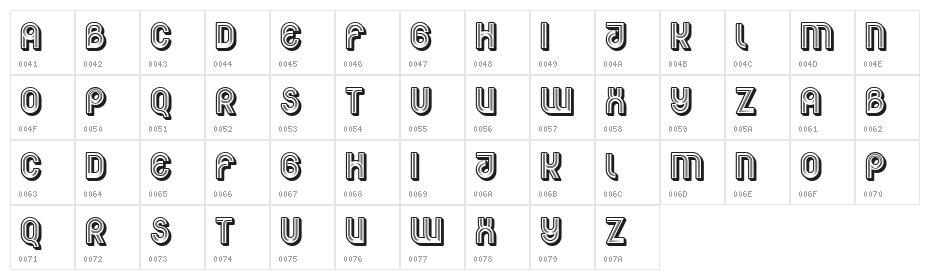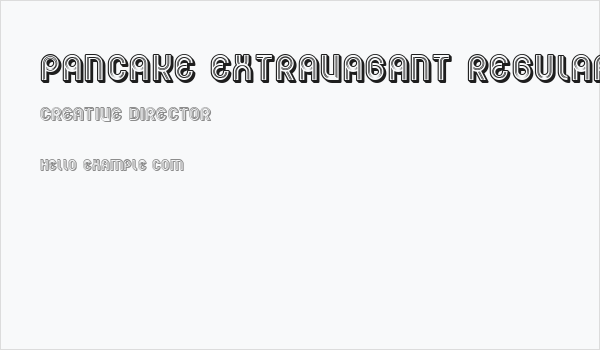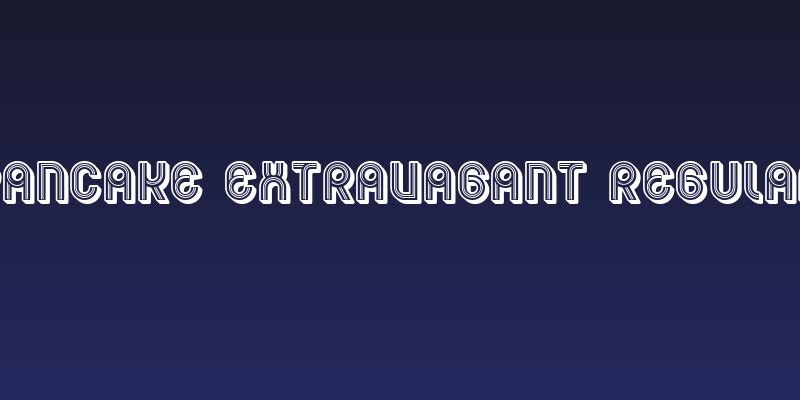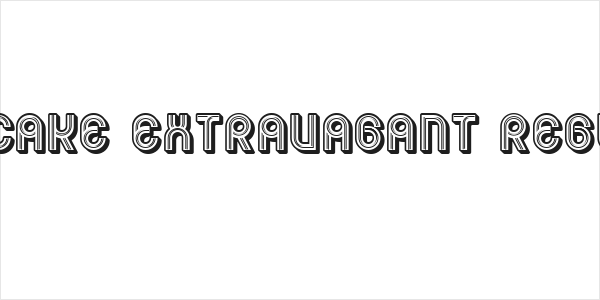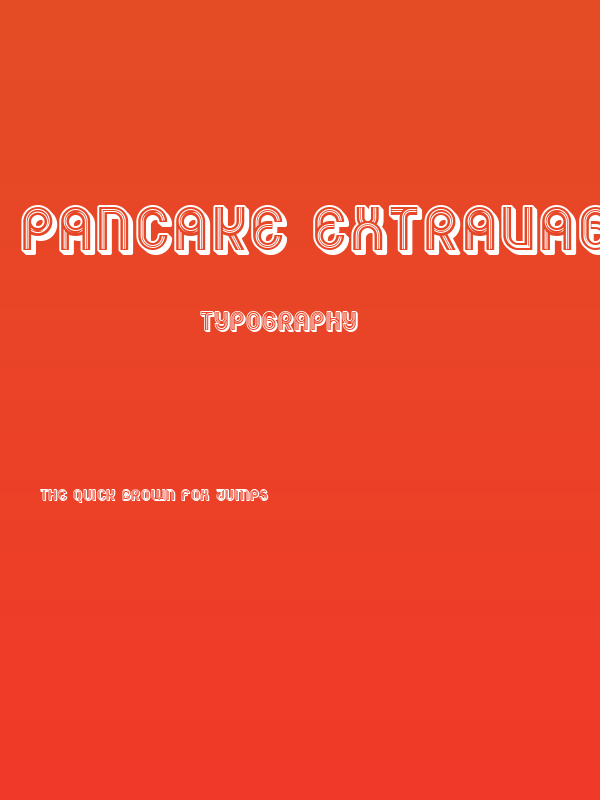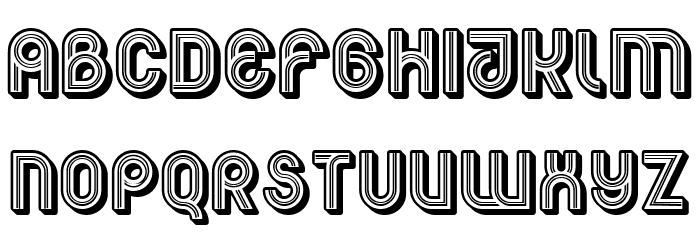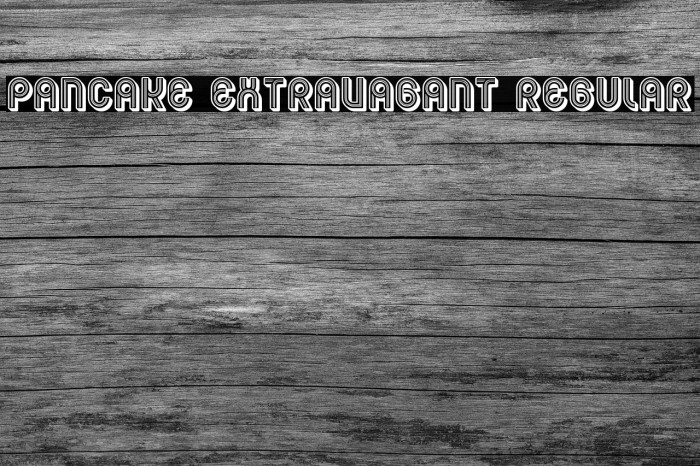
Pancake Extravagant Regular Font
Pancake Extravagant Regular Description
This font features a bold, decorative style with a distinct retro flair. The characters are outlined with multiple layers, creating a three-dimensional effect that adds depth and visual interest. The uppercase letters are uniform in height, with a consistent width that maintains readability despite the intricate design. The font's geometric shapes and clean lines give it a modern touch, while the layered outlines evoke a sense of nostalgia. This combination makes it ideal for projects that require a standout, eye-catching typeface.
| Overall Style | Retro, Decorative |
| Proposed Projects | Ideal for posters, branding, album covers, and any design needing a bold, retro aesthetic. |